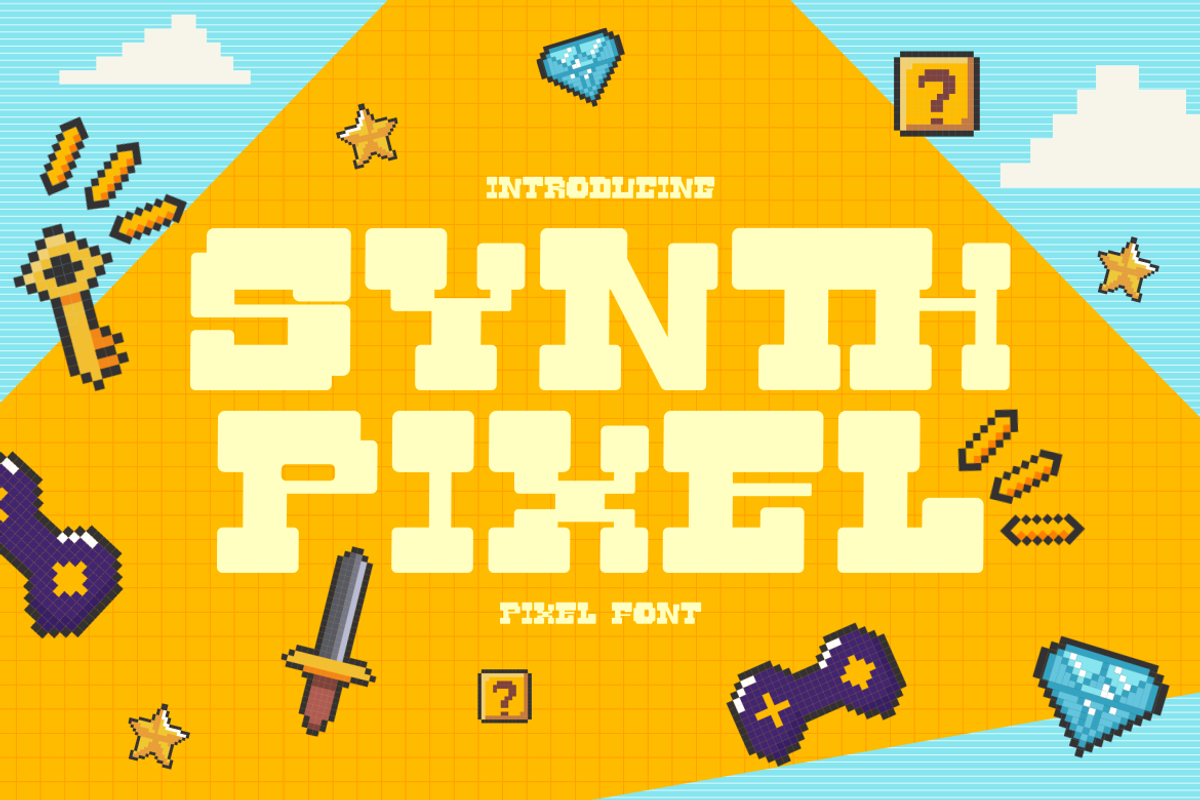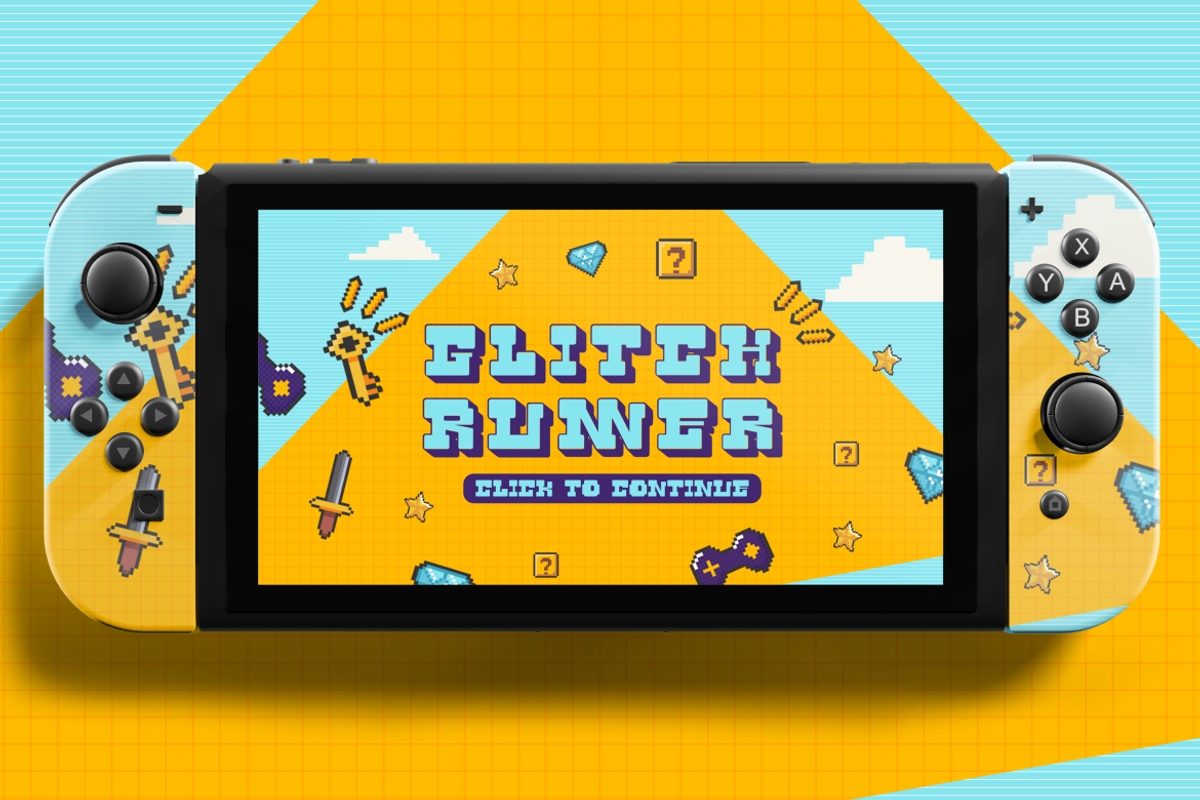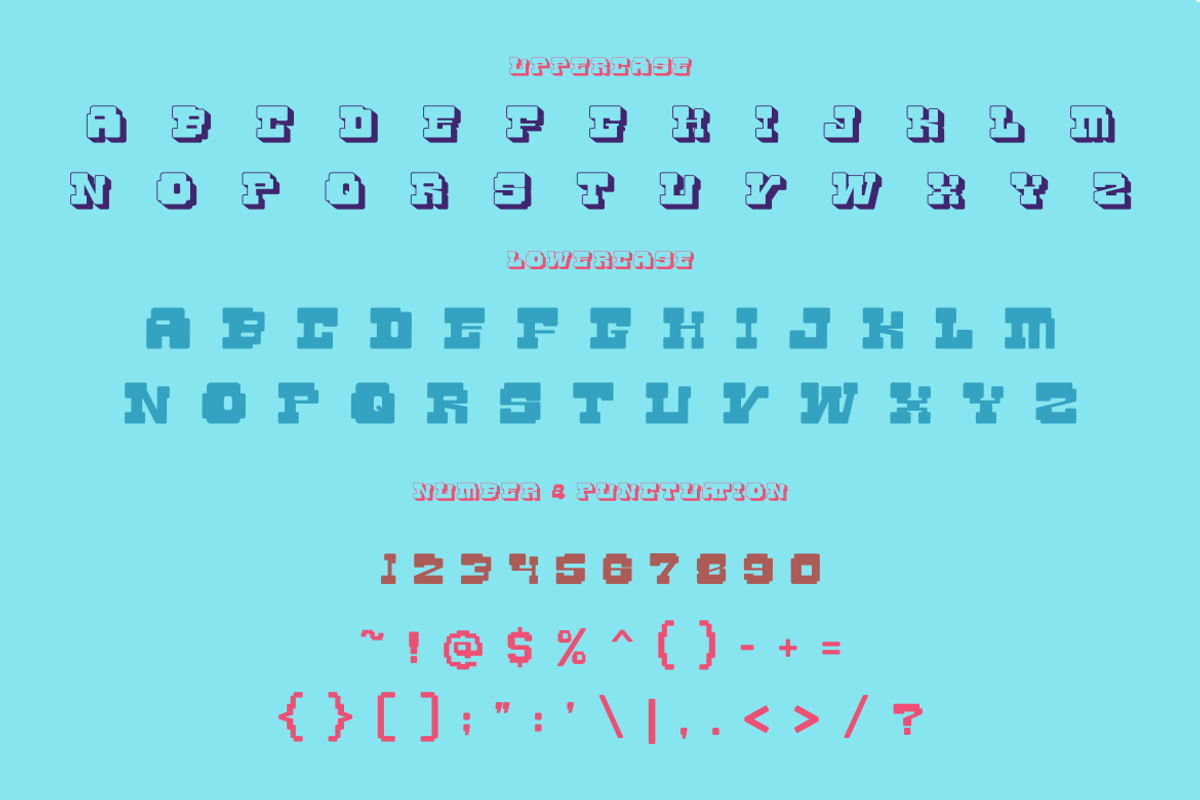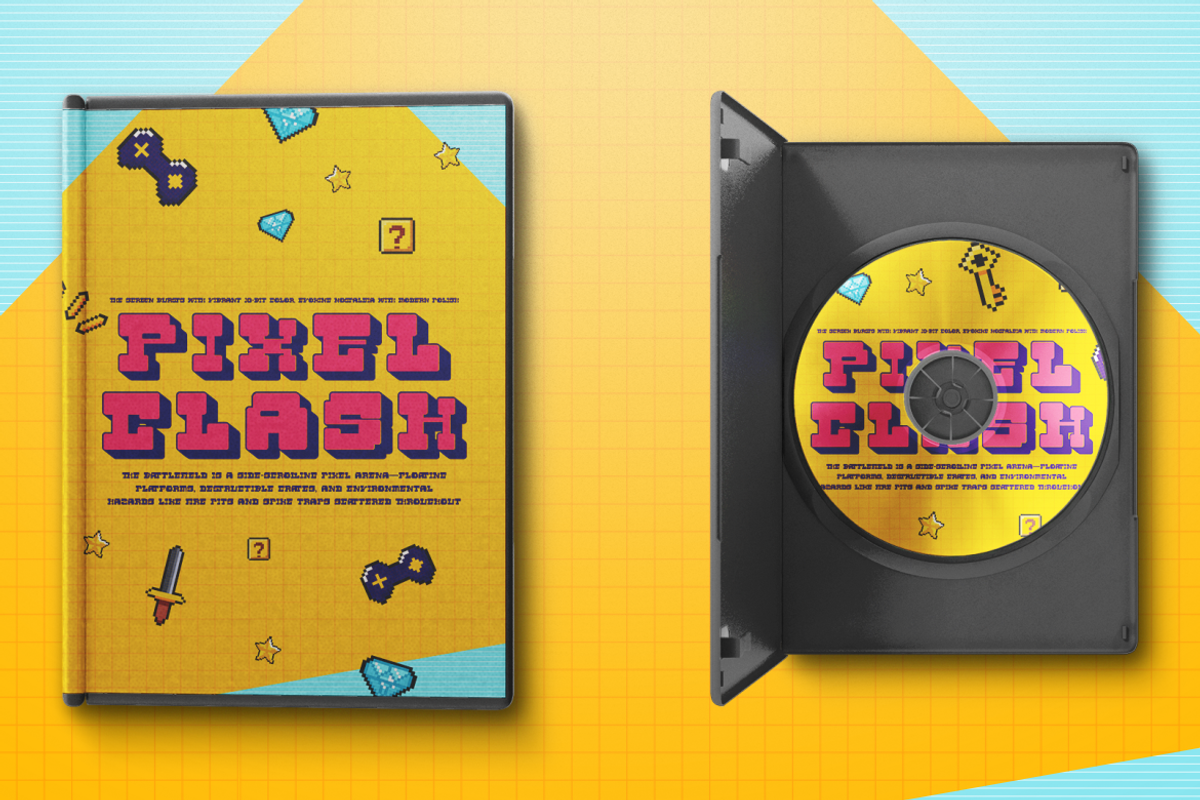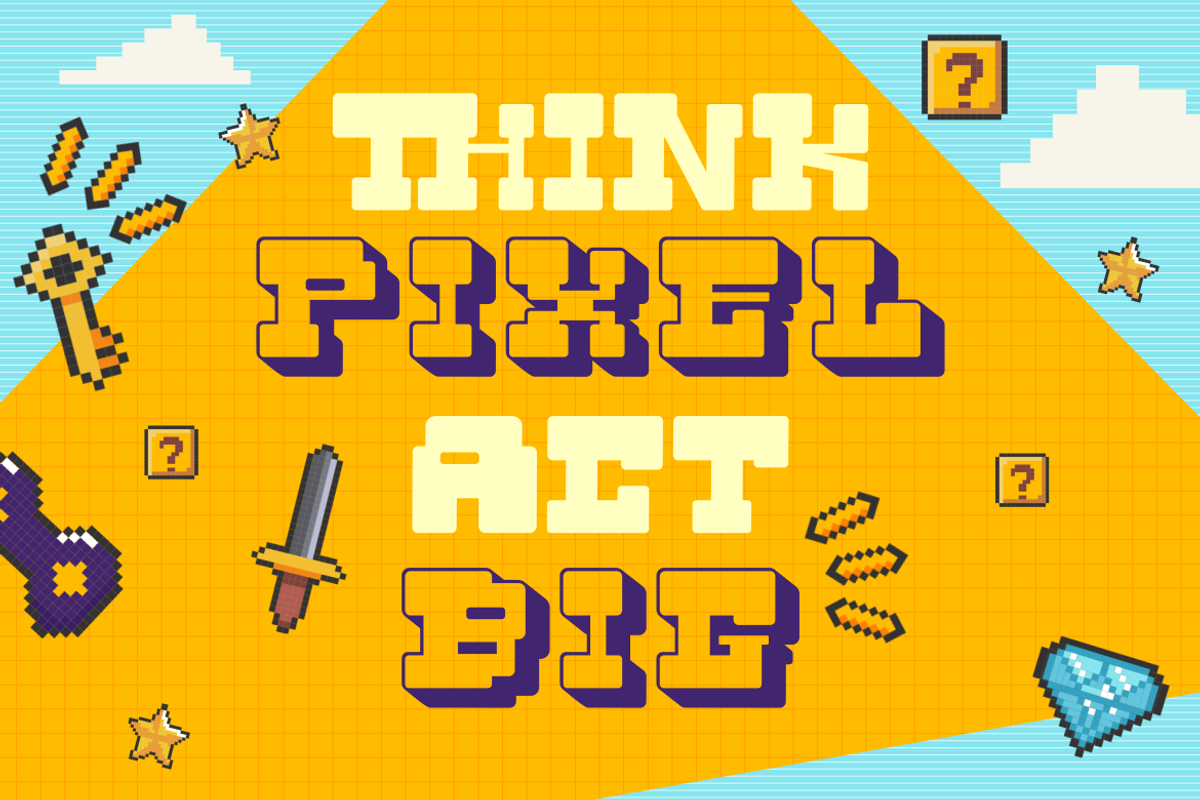
Synth Pixel - Y2K Game Font
Synth Pixel is a chunky, retro-styled pixel font inspired by classic 8-bit and 16-bit video games—infused with a bold Y2K aesthetic and nostalgic charm. Built with blocky letterforms and pixel-perfect proportions, this display font captures the energy of early console typography while introducing a modern twist with added dimensional depth. The characters are square-based with smooth geometric edges and vibrant outlines, offering both flat and shadow-stacked variations. The font includes uppercase, lowercase, numerals, and full punctuation, allowing complete creative flexibility for all your retro game-inspired designs.
Perfectly suited for video game UI, indie game titles, Twitch overlays, arcade logos, pixel art posters, YouTube thumbnails, and nostalgic merch, Synth Pixel injects joy and play into any layout. Whether you're crafting a cartridge-style label or branding your digital collectibles, this typeface delivers fun, readability, and unmistakable personality. With its throwback to digital childhoods and bright future-tech vibes, Synth Pixel bridges the best of two design eras in one powerful pixel pack.